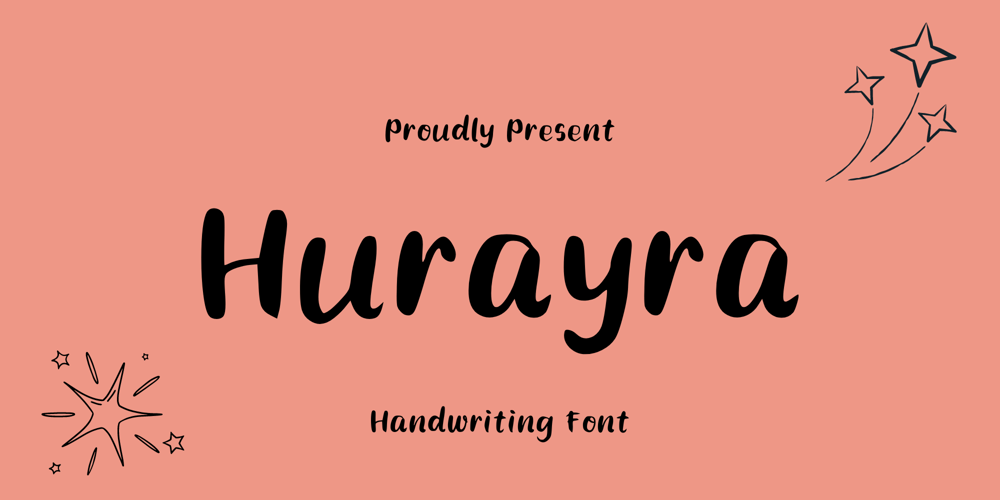
Hurayra Font Family was designed by published by Sidkia Fonts. Hurayra contains 1 styles and family package options. Hurayra font is a beautiful, unique, and graceful regular handwritten font. This font will enhance your designs and work.